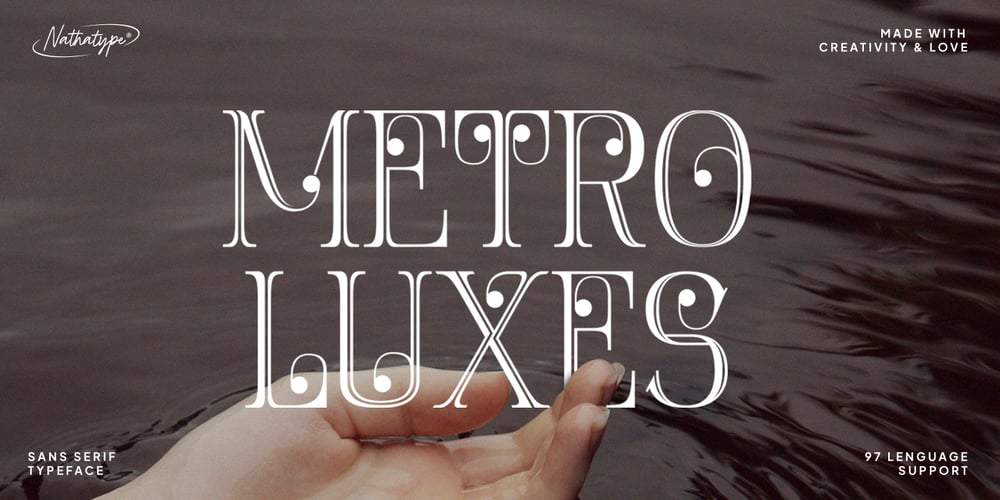
Metro Luxes Font Family was designed by Donis Miftahudin and published by Nathatype. Metro Luxes contains 1 styles and family package options. Metro Luxes is a refined sans serif font that embodies sophistication and modernity. Crafted exclusively in uppercase, this font exudes a sense of elegance. With its sleek lines and balanced proportions, Metro Luxes strikes the perfect balance between contemporary style and timeless elegance. The letters are meticulously designed with a moderate thickness, ensuring clarity and readability. Adding a subtle touch of flair, Metro Luxes shows delicate ornamentation at the end of each letter. These decorative elements add a sense of refinement and sophistication, elevating the font’s aesthetic appeal and making it stand out from traditional sans serif fonts. In addition, enjoy the features here.Features: Multilingual Supports PUA Encoded Numerals and Punctuations Metro Luxes fits in headlines, logos, posters, flyers, branding materials, greeting cards, print media, editorial layouts, and many more designs. Find out more ways to use this font by taking a look at the font preview.Thanks for purchasing our fonts. Hopefully, you have a great time using our font. Feel free to contact us anytime for further information or when you have trouble with the font. Thanks a lot and happy designing.